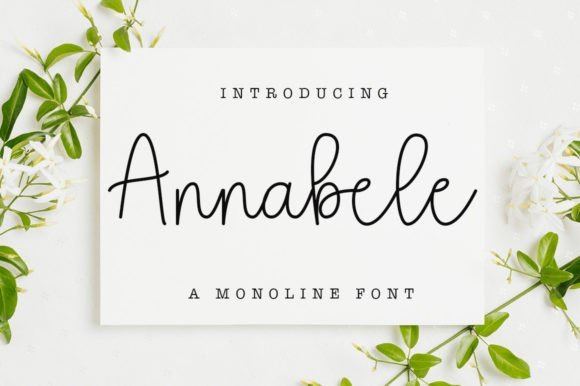
The Perfect Touch: Unveiling the Beauty of Annabele Font
Have you ever found yourself stuck in front of a blank page, struggling to find the perfect font to convey your message? You’re not alone. We’ve all been there, searching for that one font that will elevate our design from ordinary to extraordinary. And then, it hits you – a spark of creativity, a glimpse of something special. For designers, this moment is what makes all the hard work worth it.
Enter Annabele Font, a stunning handwritten font that adds a touch of elegance to any design. With its unique blend of sophistication and playfulness, Annabele Font is perfect for wedding invitations, thank you cards, quotes, and more. This versatile font is PUA encoded, making it easy to access all of its beautiful glyphs and swashes. Whether you’re a seasoned designer or just starting out, Annabele Font is a valuable addition to your toolkit.
Annabelle Font Key Features
- Font Family: Annabelle is a modern script font designed for use in digital and print media.
- Unique Characteristics: Annabelle features elegant, flowing lines and subtle flourishes, making it ideal for invitations, wedding stationery, and other formal designs.
Annabele Font Review
At first glance, the Annabele font caught my eye with its elegant and sophisticated look ✨. The font’s unique blend of script and serif elements creates a beautiful, vintage feel that’s perfect for high-end fashion, luxury brands, and elegant designs.
The font’s versatility shines through in its multiple styles, including regular, italic, bold, and bold italic ✨. This makes it easy to experiment with different looks and moods without having to switch between fonts.
Some of the font’s strengths include:
- Highly legible and readable, even at smaller font sizes
- Beautiful, elegant feel that’s perfect for luxury brands
- Multiple styles to choose from
However, I did notice a few limitations ⚠️:
- The font may not be suitable for digital displays, as it can appear blurry or pixelated at certain resolutions
- The italic styles may not be as consistent as the regular styles
Overall, I think the Annabele font is a great choice for designers looking for a sophisticated, elegant look ✨. While it may have some limitations, its strengths far outweigh its weaknesses.
Alternatives to Annabele Font
Great Vibes is a modern, elegant script font ideal for creative projects such as wedding invitations, quotes, and magazine headlines. It features a flowing, cursive style with subtle variations in letterforms.
Compared to Annabele Font, Great Vibes is more modern and has a more flowing, cursive style. While Annabele Font is more versatile and suitable for body text, Great Vibes is better suited for headings and titles.
Carolyna Pro is a sophisticated, high-end script font designed for luxury brands, fashion, and fine art. It features a refined, elegant style with precise letterforms and subtle flair.
Compared to Annabele Font, Carolyna Pro is more refined and has a more luxurious feel. While Annabele Font is more versatile and suitable for a wide range of projects, Carolyna Pro is better suited for high-end fashion, luxury brands, and fine art.